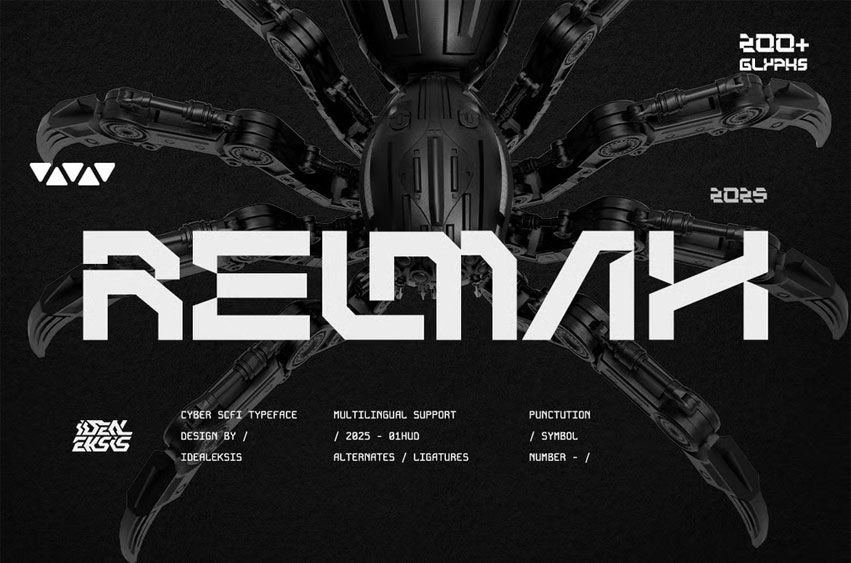
Relmax Font
Relmax Font is a futuristic cyber display with sharp geometric cuts and high-tech styling. Perfect for sci-fi titles, tech branding, gaming interfaces, posters, and digital projects that need a strong, robotic, and modern aesthetic.
• Uppercase (ALL CAPS)
• Numerals
• Alternates